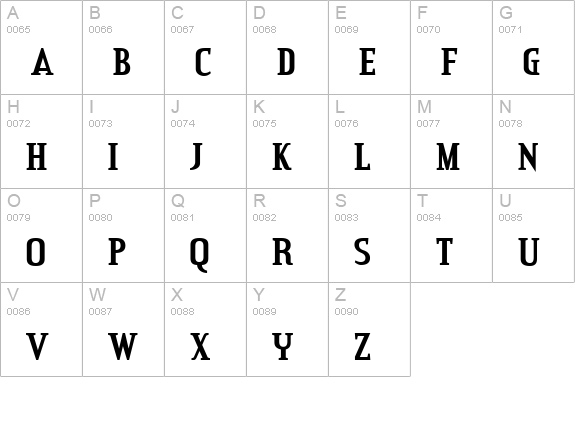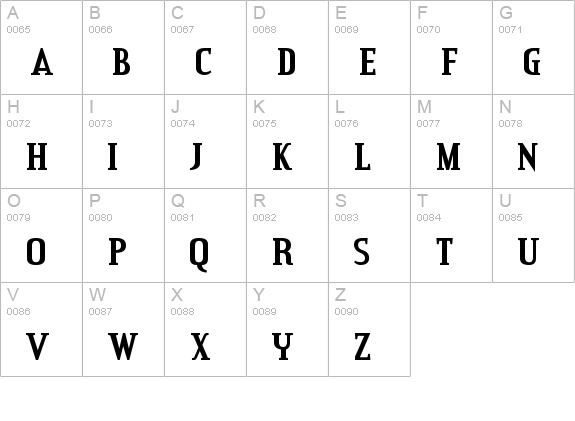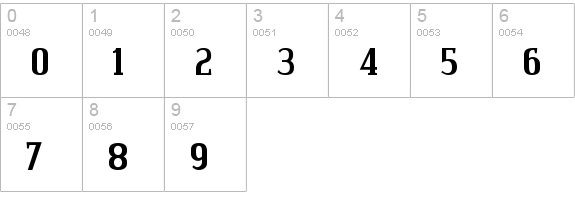
Credit Valley Bold is a strong, high-contrast variant in the Credit typeface family \xE2\x80\x94 well suited to headlines, attention-grabbing titles, and strong calls-to-action.
Introducing Credit Valley Bold font - a versatile and modern typeface that exudes confidence and sophistication. With its strong and bold letterforms, Credit Valley Bold is perfect for making a statement in any design project. Whether you are creating a striking headline or crafting a sleek logo, this font will surely stand out. The best part? Credit Valley Bold is available for free download at FontsMarket.com. You can easily access this stunning font and elevate your designs without any cost. Embrace the sleek elegance of Credit Valley Bold and take your projects to the next level with this must-have typeface.